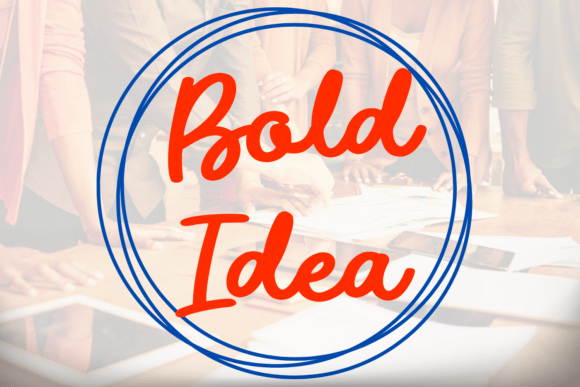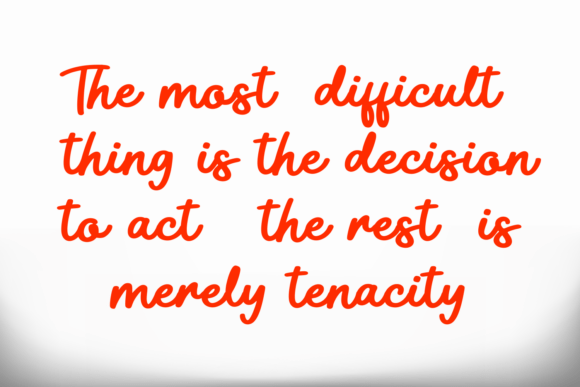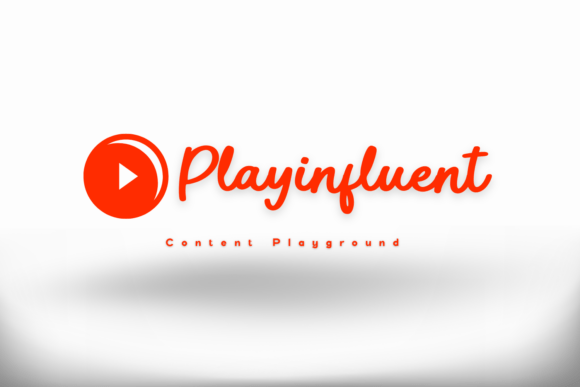
Introduction to Cutton Boiller Font
Say hello to Cutton Boiller Handwritten Font – your new creative BFF.
This font is packed with personality, designed to add a dash of whimsy and a whole lot of charm to everything you create Whether you’re designing for fun, crafting invitations, or spicing up your social media posts, Cutton Boiller is here to make your words POP.
Key Features of Cutton Boiller Font
Why Choose Cutton Boiller Font?
Cutton Boiller Font offers exceptional quality and versatility, making it a valuable addition to your design toolkit. Whether you’re creating for personal projects or commercial use, Cutton Boiller Font delivers professional results.